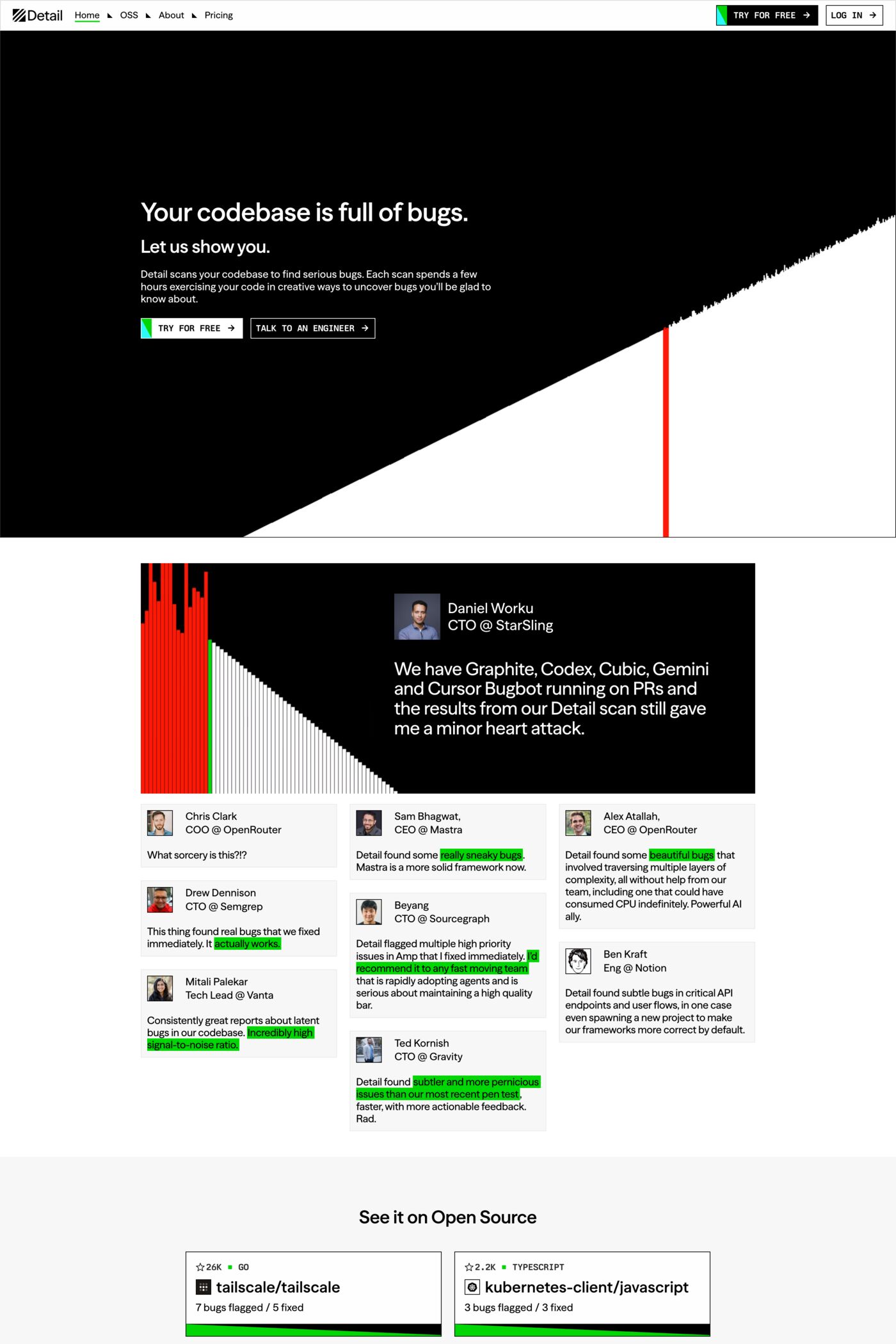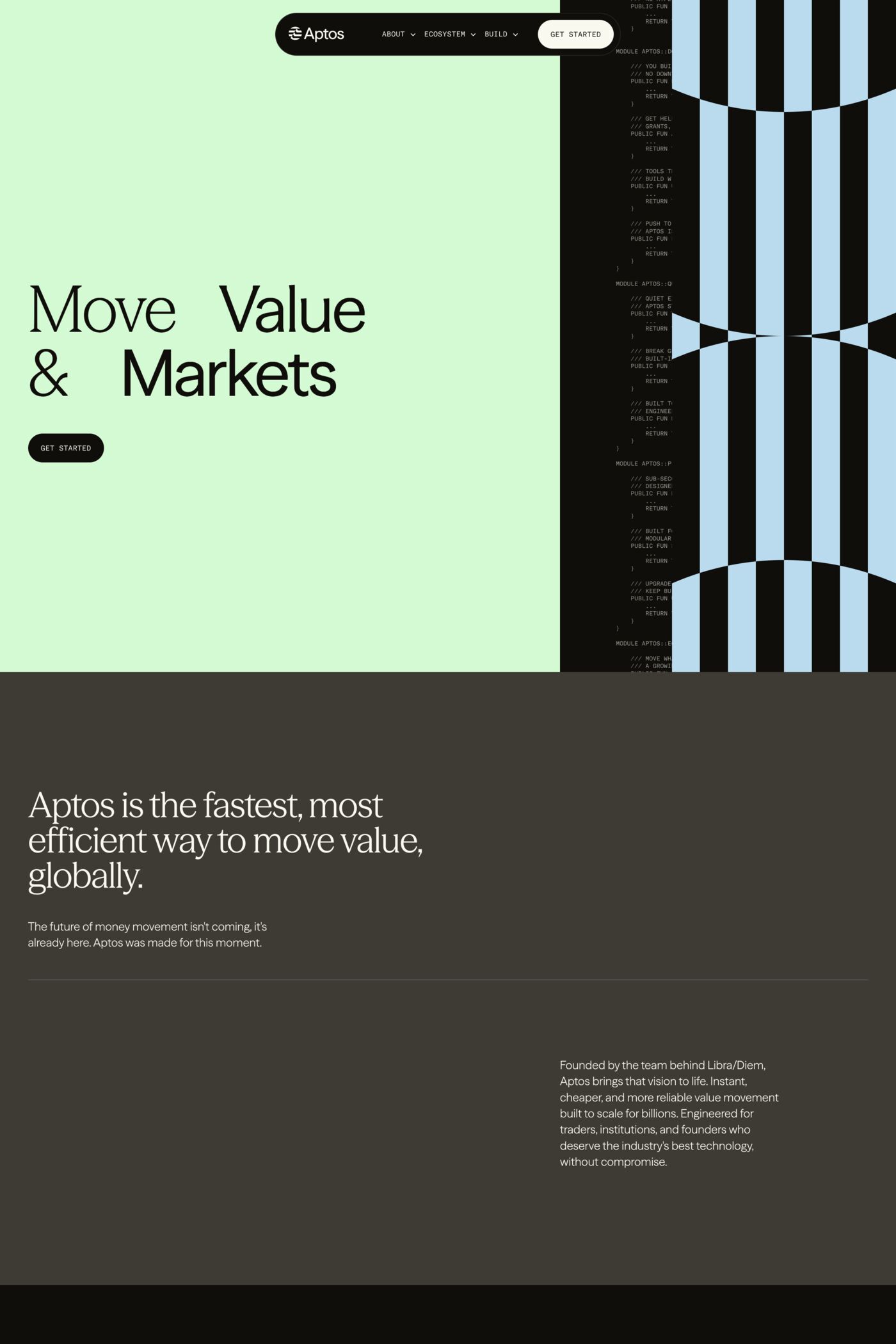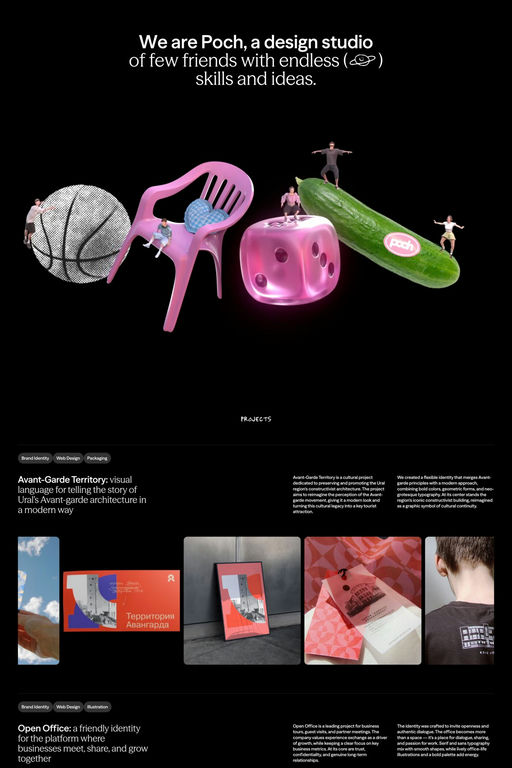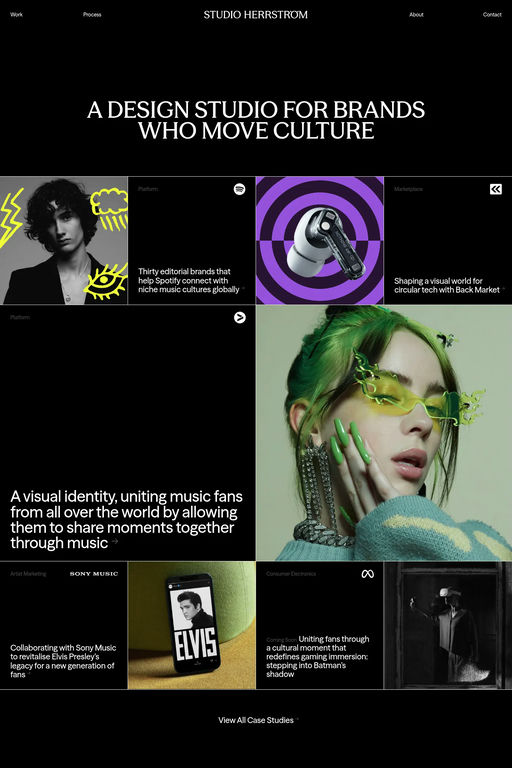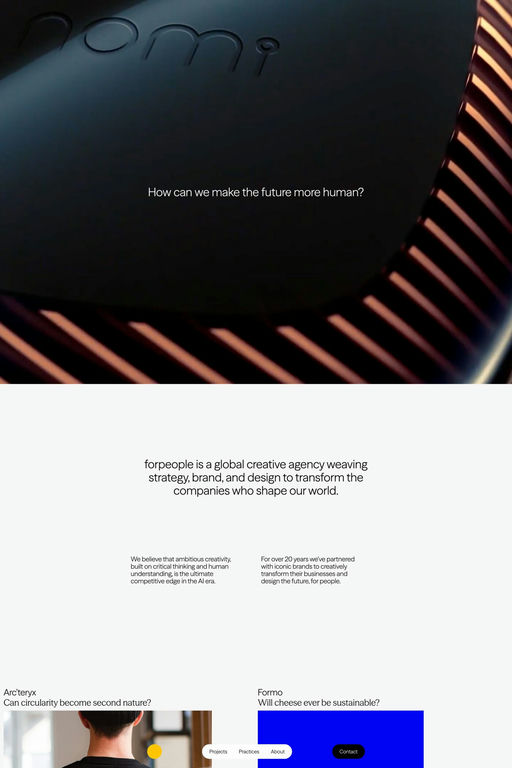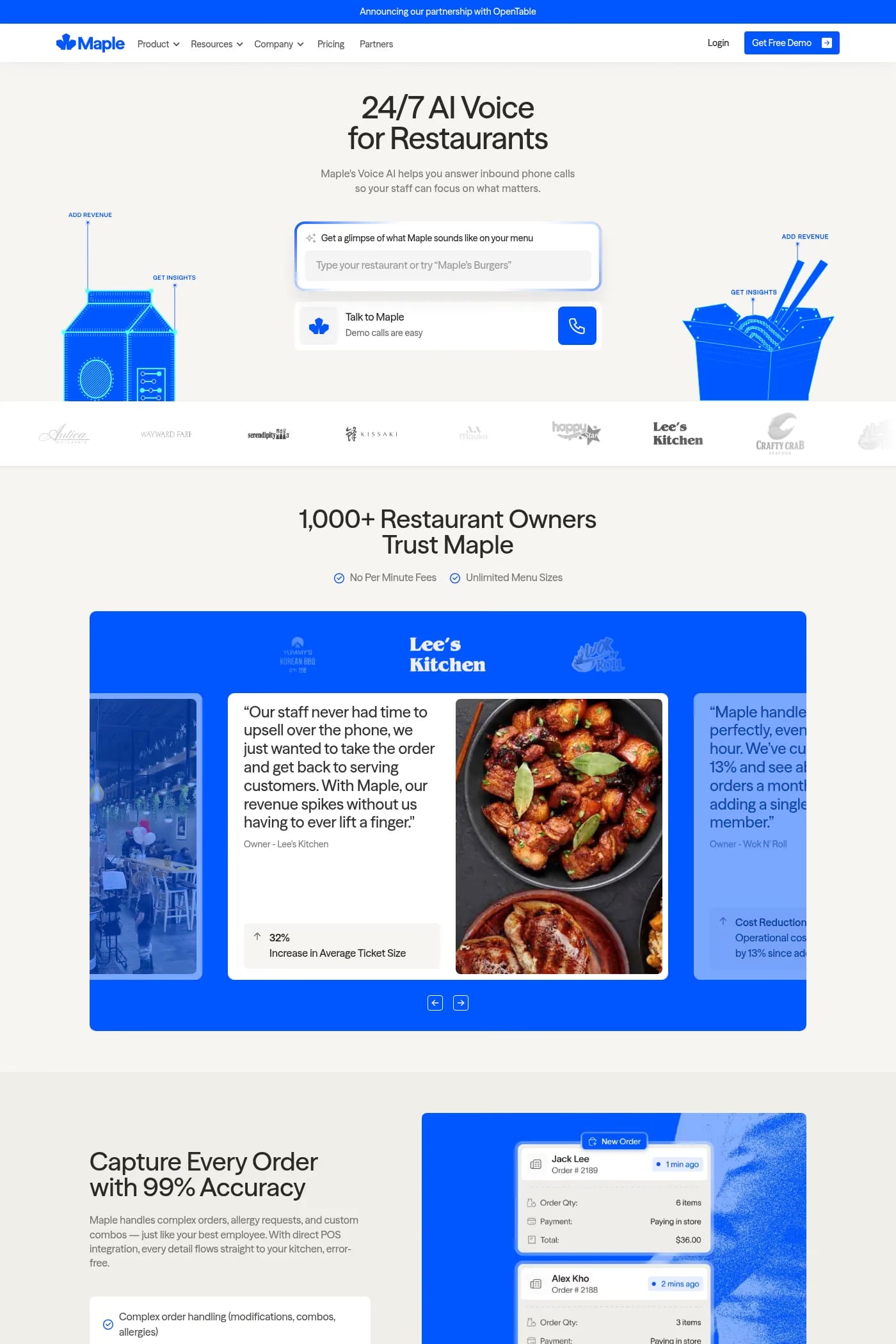
Season Sans is a sans-serif typeface from Displaay Type Foundry.
The exploration of the transformation from sans to serif (or serif to sans) and the stages in between is at the heart of our Season typeface. Just as you enjoy the changing seasons, we hope you’ll appreciate each phase of Season. With the variable font format, you can experience even more stages in this dynamic sans-to-serif collection.